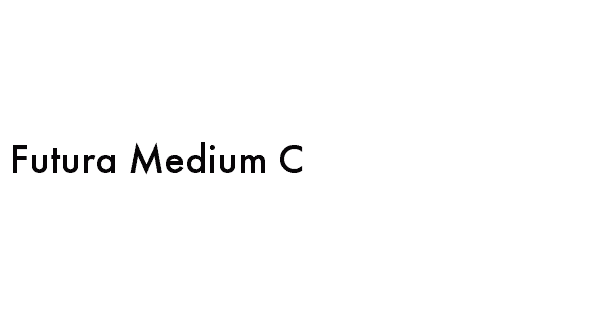
Futura Medium Font
Futura medium font. Readability is affected by font family. Kabel was designed by Rudolph Koch for Klingspor, while Futura was designed by Paul Renner for Bauer. Free fonts, futura heavy.
Futura remains an important typeface family and is used on a daily basis for print and digital purposes as both a headline and body font. View all page feedback. Futura Heavy Font Free.
Digital Ad 35 35.00 35. Futura Heavy Font Free Download. The uppercase characters present proportions similar to those of classical Roman capitals.
The font is also used extensively in advertisements and logos, notably by IKEA (until 10), Supreme, Party City, Volkswagen, Royal Dutch Shell, Crayola, Swissair, FremantleMedia (until 18), Absolut and HP in their print ads. Futura Medium is the light thick font that is very elegant and super quality specially when you’re trying to design your headlines and sub-headlines for object like print design, advertising and promotional materials. With a title font that strong, balance your page out with Roboto Bold.
Created by german type designer Paul Renner and released in 1927, Futura was an immediate success and has since earned its place among the classics with its timeless geometric beauty. Futura is the fully developed prototype of the twentieth century Geometric Sanserif. Wir haben uns umgeschaut und eine Auswahl der besten kostenlosen Fonts zusammengestellt.